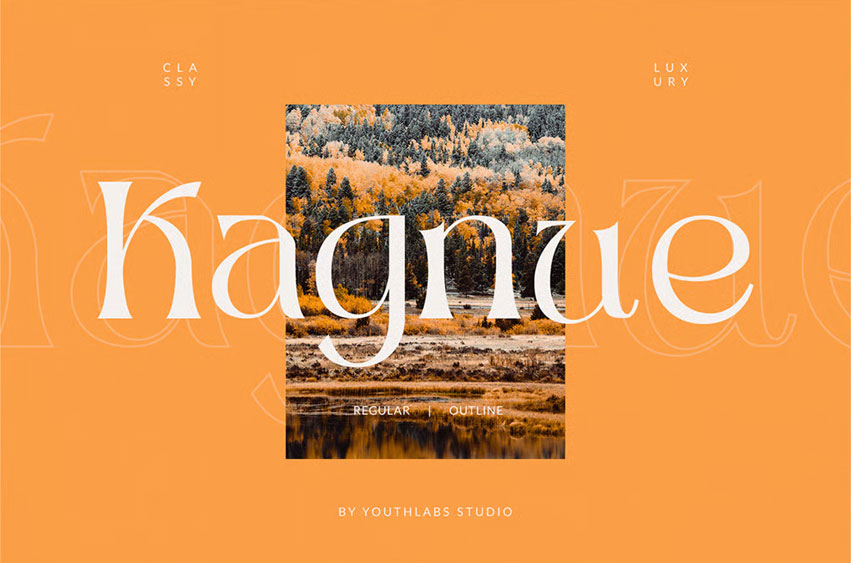
Kagnue Font
Kagnue Font is a brand-new serif Font with a Classy and Modern style. Kagnue Serif font is made with a combination of classic italic font and modern shape. Kagnue Serif font comes with More OpenType features, more neat curves
And a Serif Font inspired by Classic and Modern Glyphs shapes to make a perfect font. Kagnue Serif is a very versatile font. You can use this font for various designs. Basic character can improve to make stunning typography.